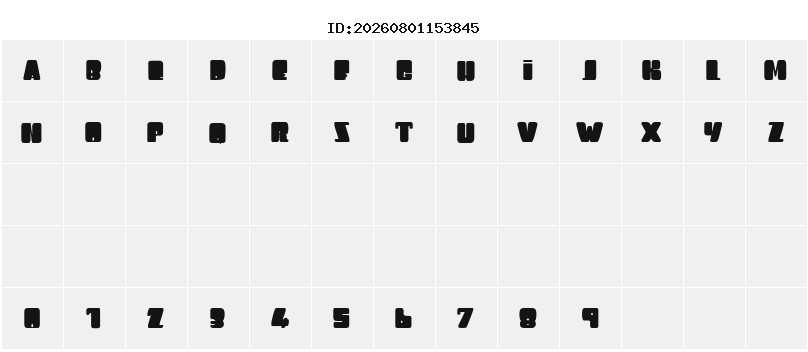
• Font Name: LEAGUE OF GIANT
• Font ID: Maelle.K: LEAGUE OF GIANT: 2016
• Full Font Name: LEAGUE OF GIANT
• PostScript Name: LEAGUE OF GIANT
• Character Count: 117
• Designer: M.K.V
• Manufacturer: Maelle.K
About LEAGUE OF GIANT.ttf
LEAGUE OF GIANT.ttf is a modern, elegant sans-serif font designed for ultimate readability and visual harmony. Perfect for branding, headlines, web design, and print materials.